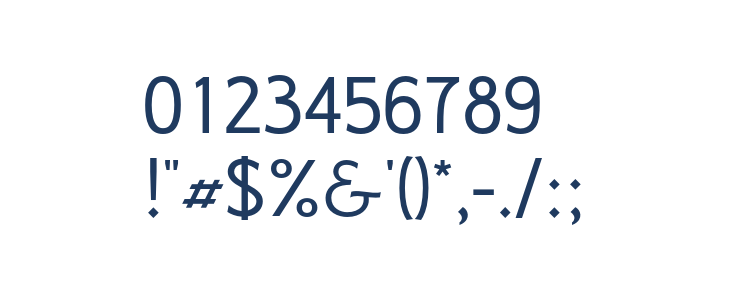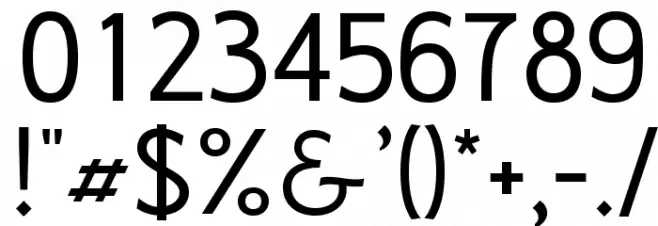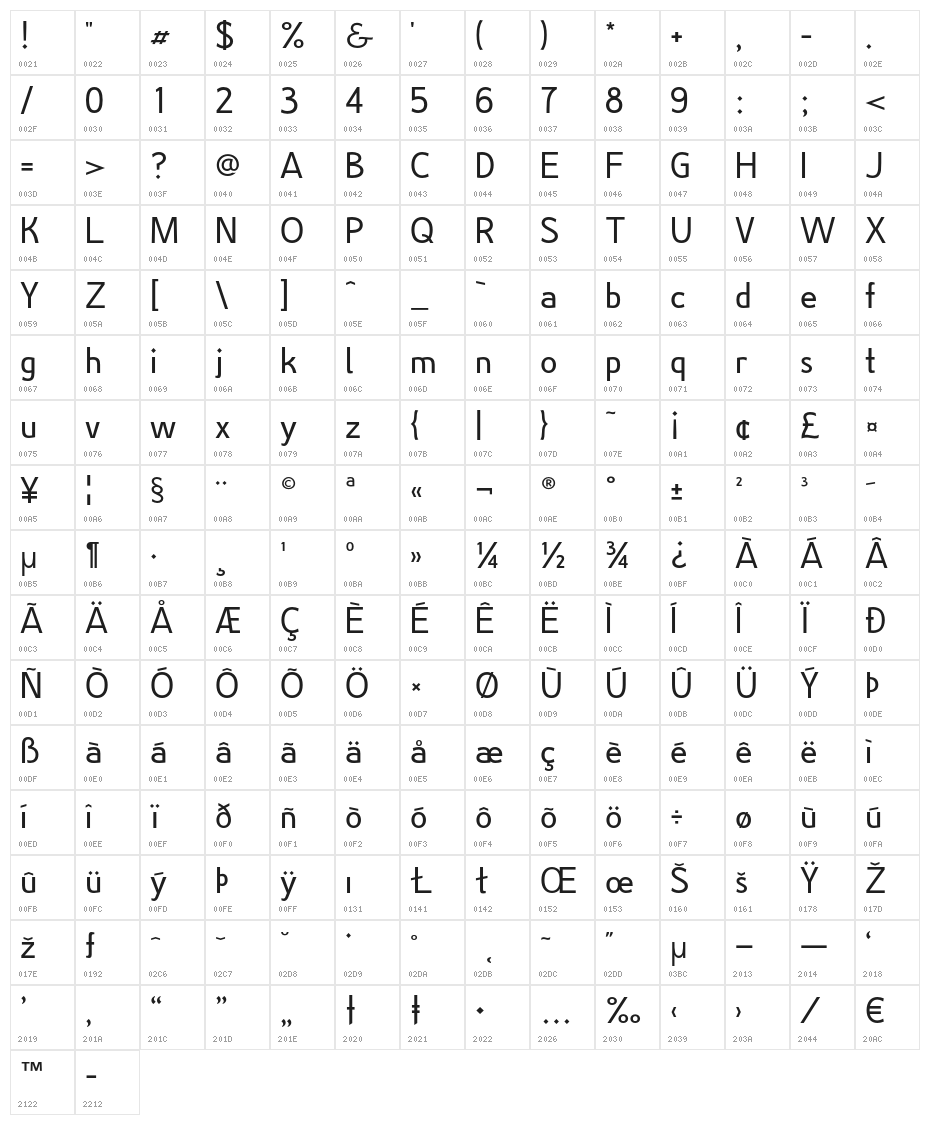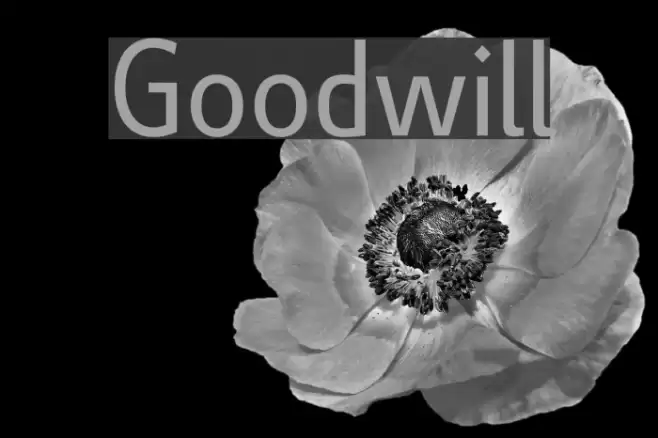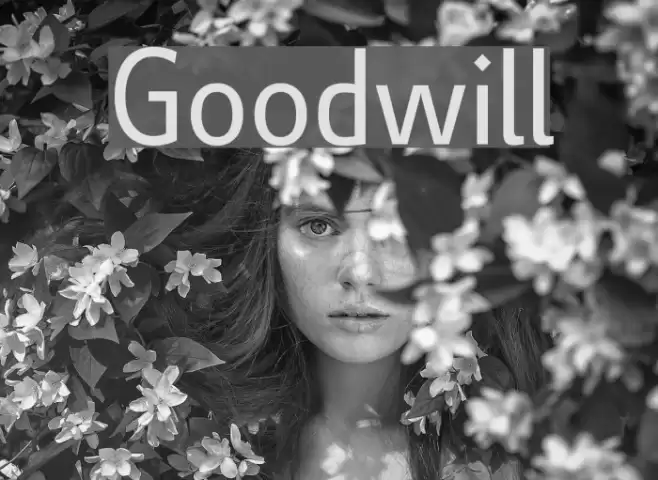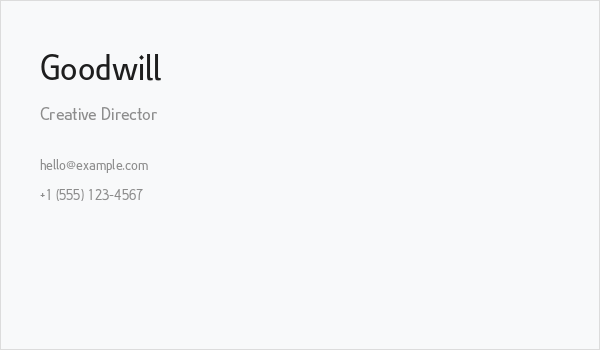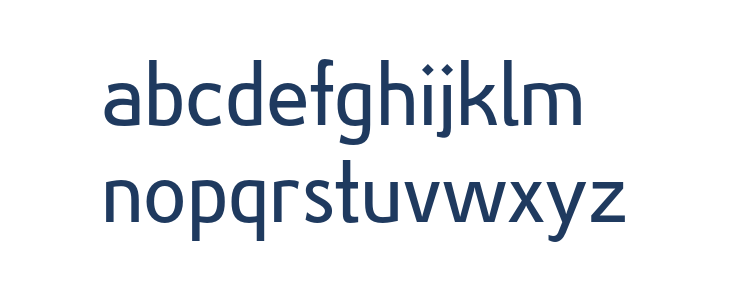
Goodwill Font
Goodwill Description
This font features a clean and modern sans-serif design, characterized by its uniform stroke width and geometric shapes. The uppercase letters are bold and assertive, while the lowercase letters maintain a consistent and harmonious appearance. The numerals are clear and easily distinguishable, making them suitable for various applications. Special characters are well-integrated and maintain the overall aesthetic of the font. The design is versatile, offering a professional look that can be used in both digital and print media.
| Proposed Projects | Ideal for corporate branding, web design, advertising, and editorial layouts. |